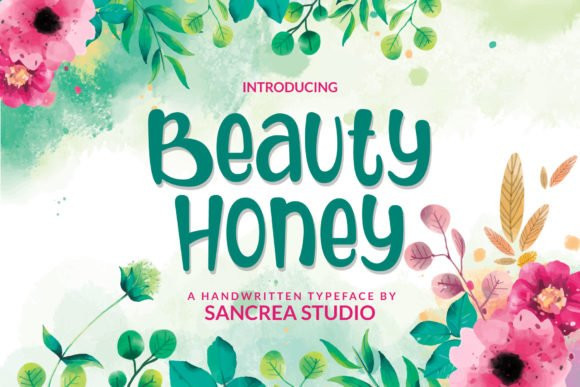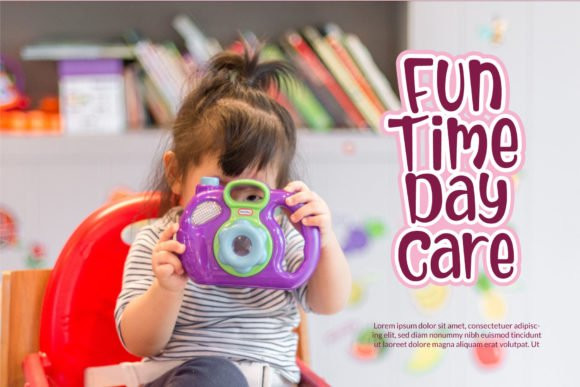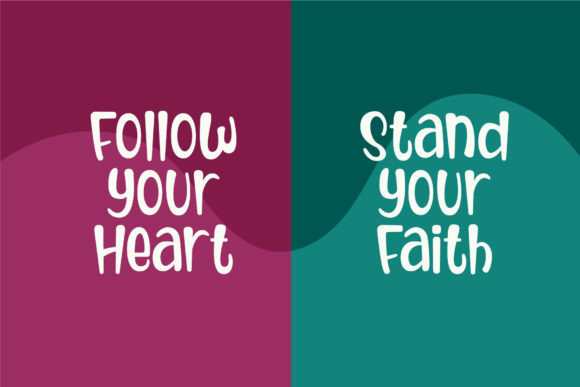
Beauty Honey Font
Beauty Honey is a fun, joyful and a bit quirky handwritten font. Due to its lovely vibe, this font is perfect for children themed designs, especially when combined with bright colors.